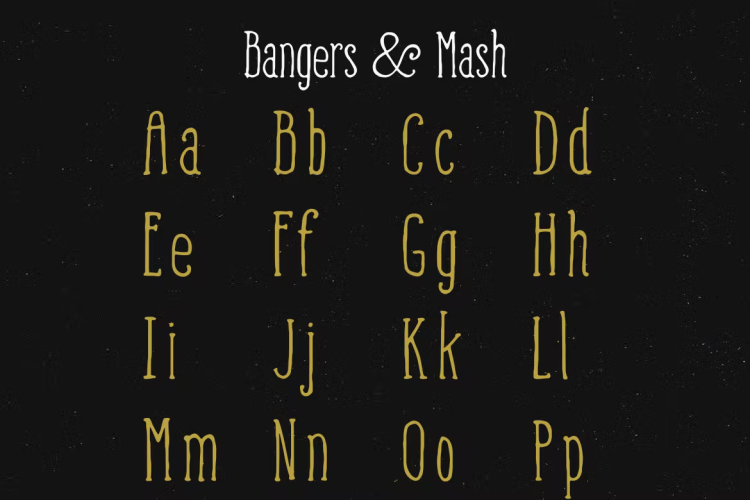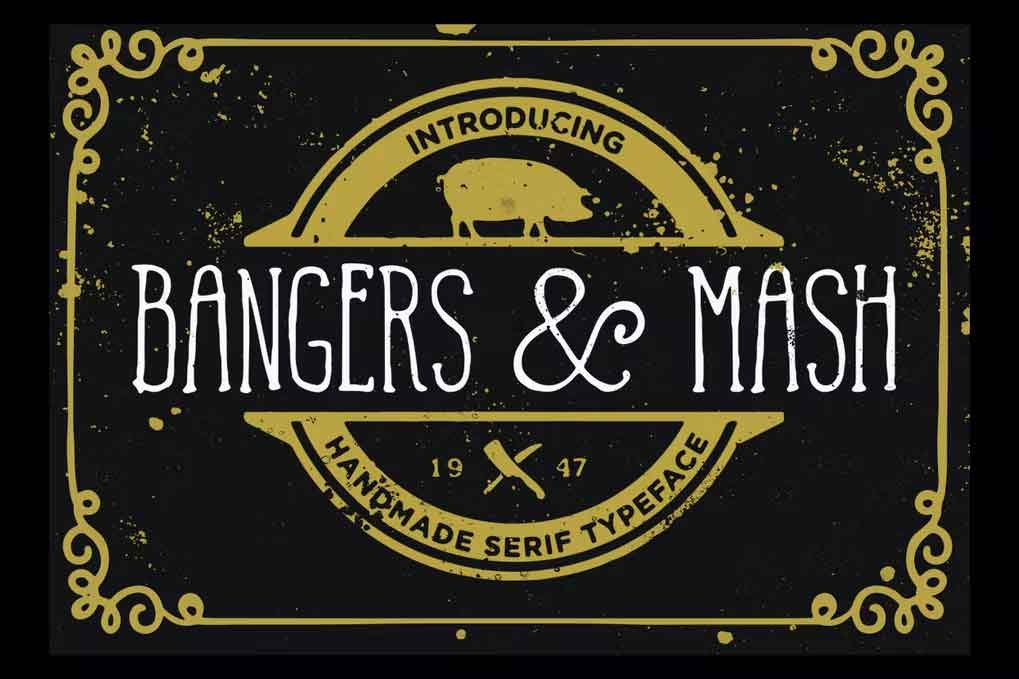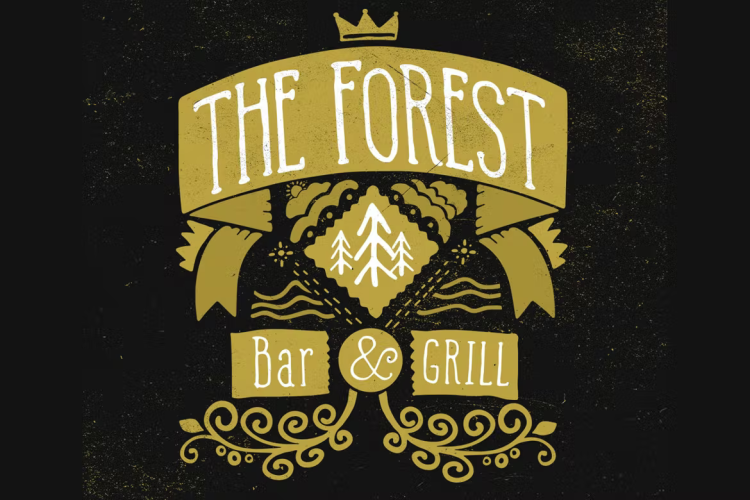
Bangers and Mash Font
Bangers and Mash is my new handmade serif font. I named it after the great British institution that is Bangers ‘n’ Mash, also known as sausages and mash.
Bangers and Mash font usage
Bangers and Mash is a cheeky little beast, it’s loose and lively. It trips along the baseline without a care in the world.
The tiny decorative serifs give it a nostalgic and quirky feeling.
Bangers and Mash would be great for branding, invitations, and other fun design projects requiring a quirky handcrafted feel.
Bangers and Mash Font is a Serif Fonts font that brings a professional and versatile look to your projects. Bangers and Mash is my new handmade serif font.